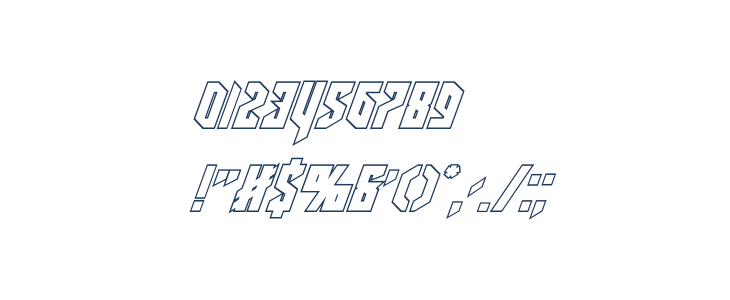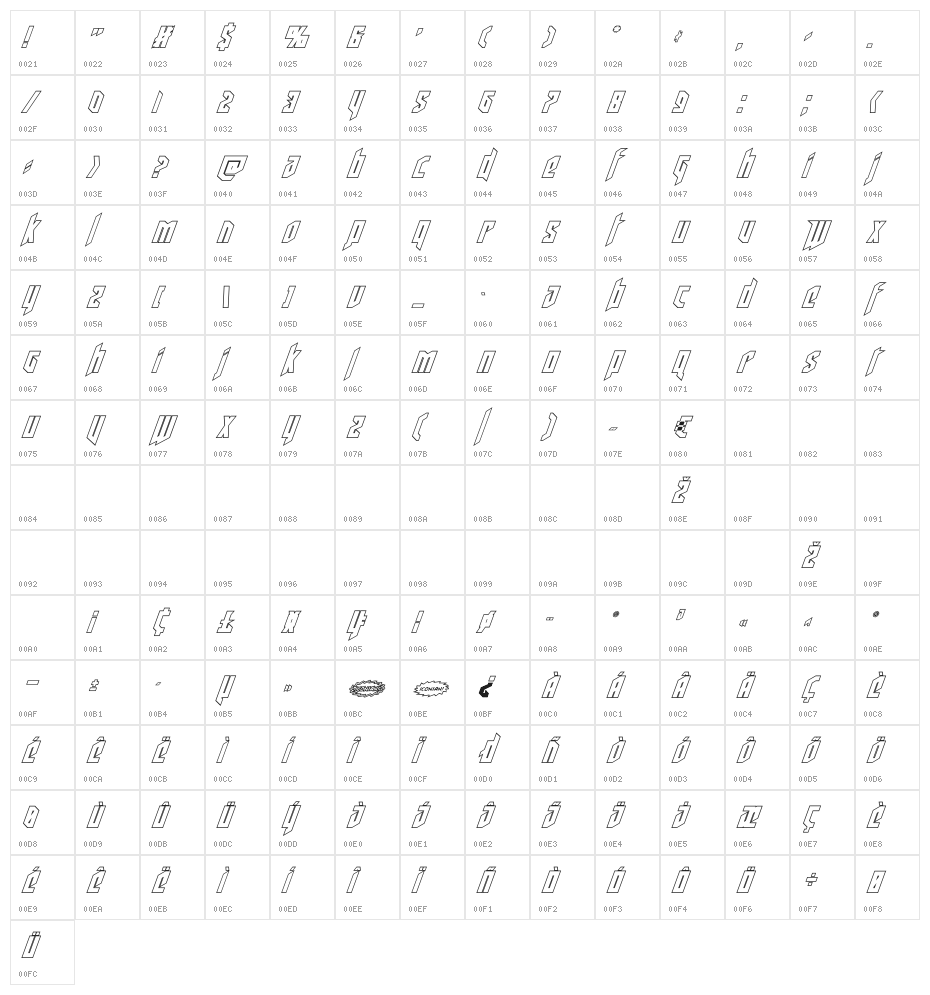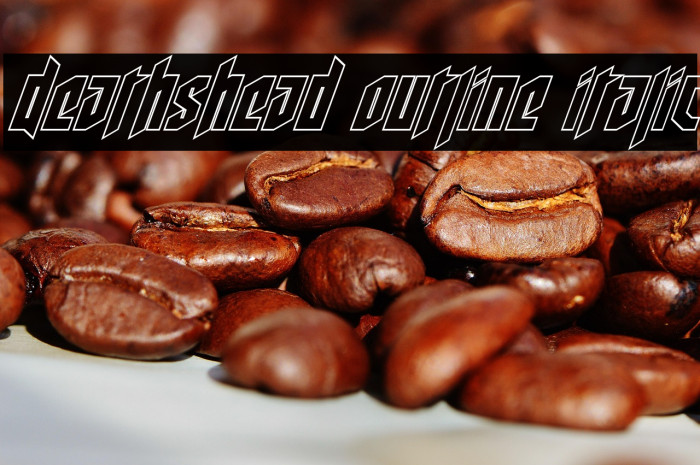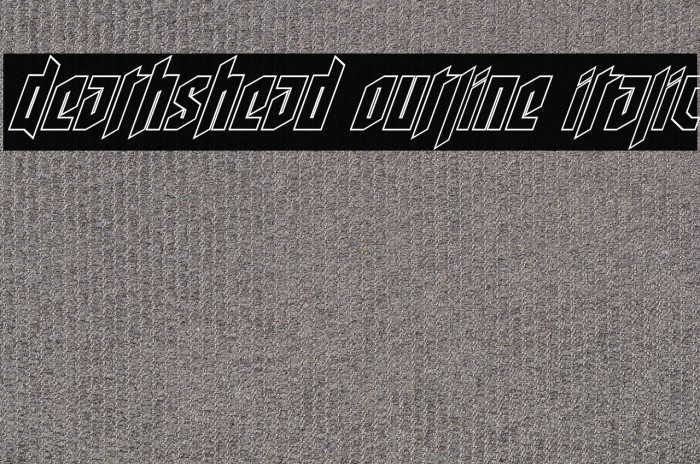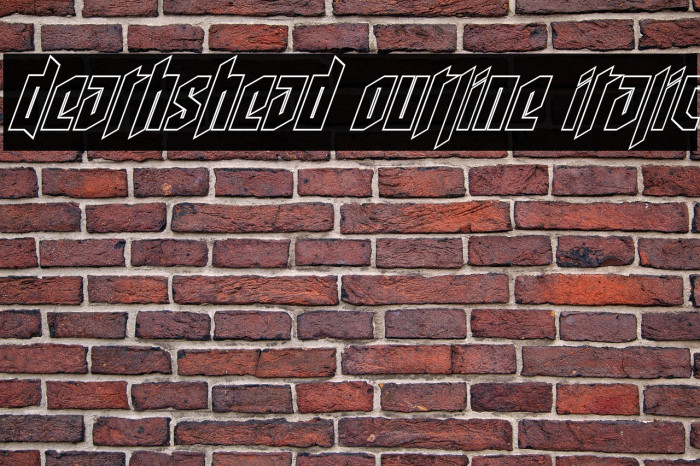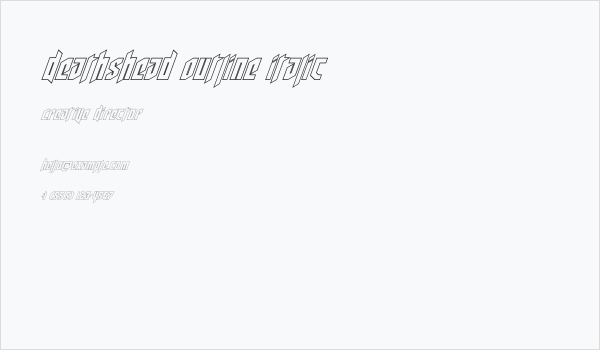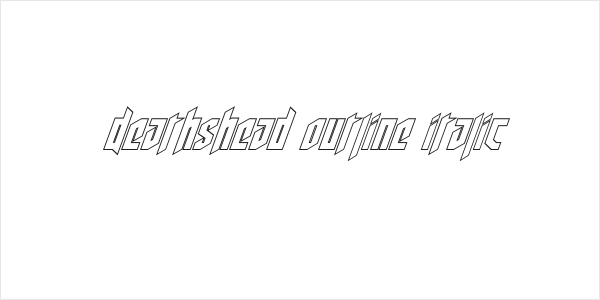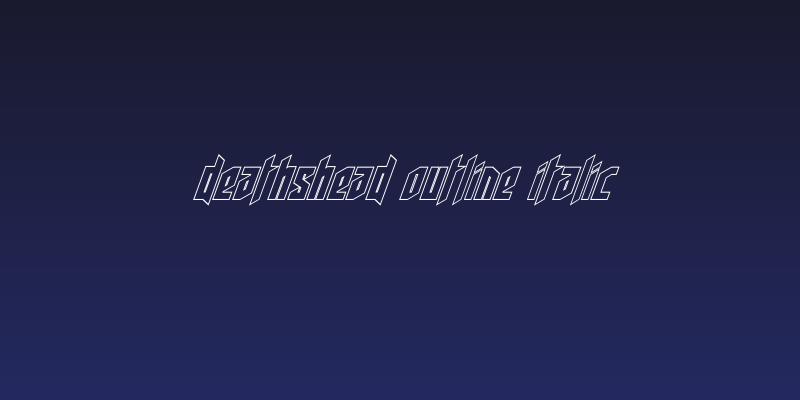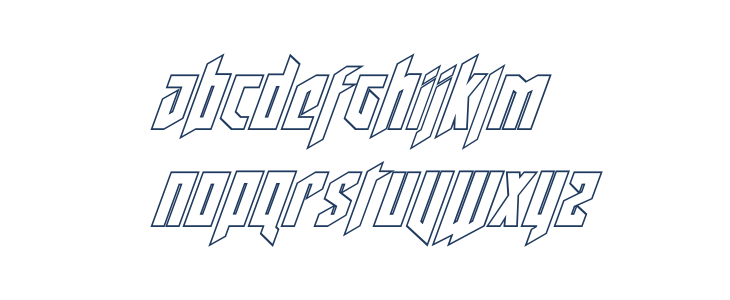
Deathshead Outline Italic Font
Deathshead Outline Italic Description
This font features a bold, angular design with a distinct outline style, giving it a sharp and edgy appearance. The italic slant adds a dynamic and forward-moving feel, enhancing its modern and aggressive look. Each character is crafted with precision, showcasing sharp edges and pointed terminals that contribute to its unique aesthetic. The uppercase and lowercase letters maintain a consistent style, ensuring uniformity across text. The numerals and special characters are designed to match the overall theme, making it suitable for impactful and attention-grabbing designs.
| Use Case | Logos, Headlines |
| Proposed Projects | Ideal for branding, posters, album covers, and any project requiring a bold, modern statement. |